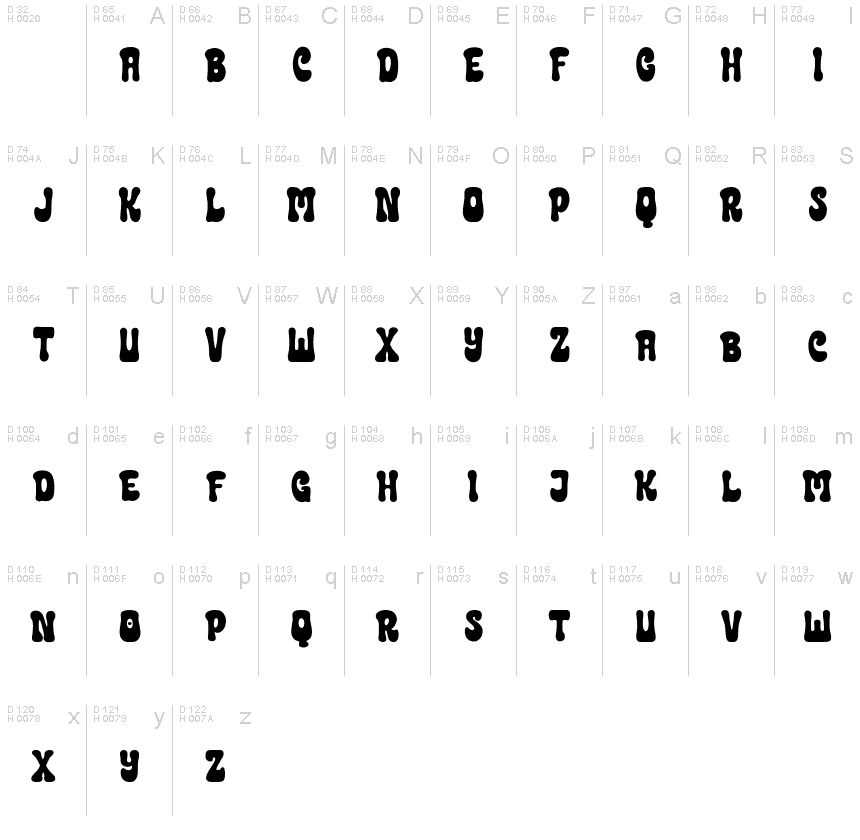
Rokish Free Regular
Rokish, a bold and groovy display font by Maulana Creative, is bound to make your projects stand out.
With its semi-condensed width and eye-catching style, this font is perfect for creating attention-grabbing posters, flyers, and album covers. Its bold weight adds a touch of confidence and impact to your designs. Whether you're working on a retro-themed event or want to add a fun and playful touch to your branding materials, Rokish is the go-to choice for all things groovy.